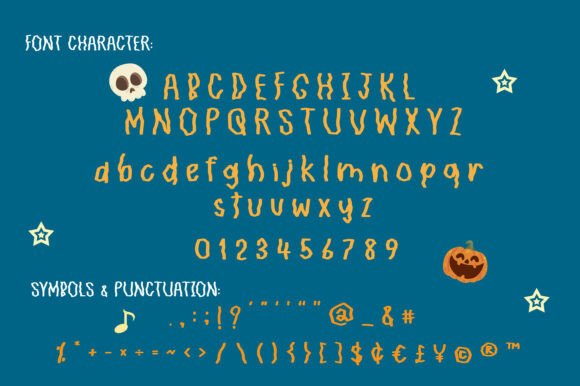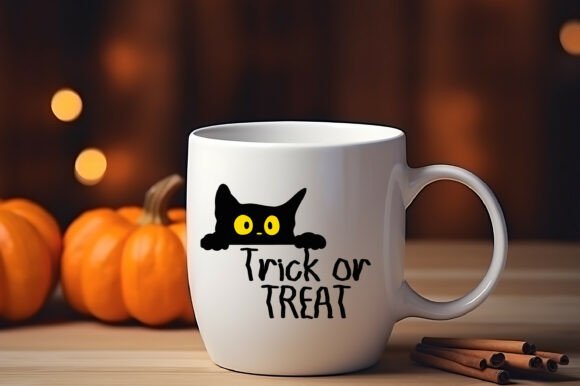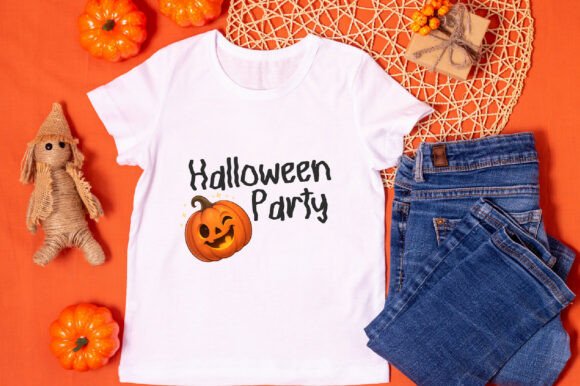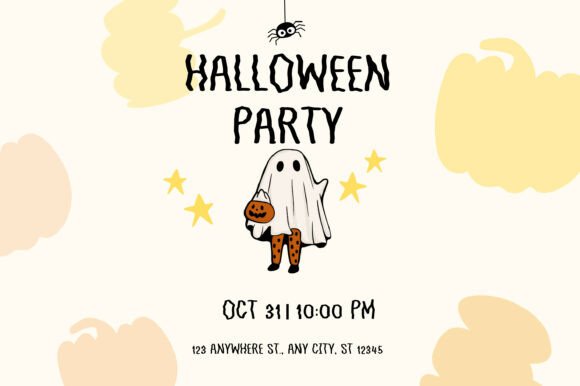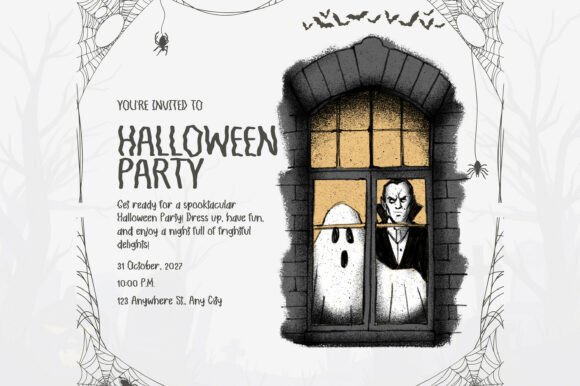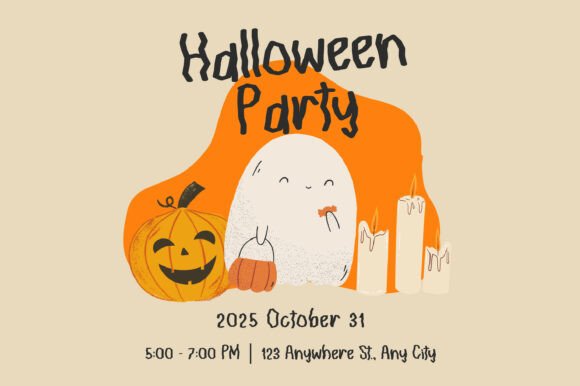
Introduction to Marker Clash Font
Have you ever stared at a blank page, trying to come up with the perfect design for a creative project, only to be struck with a burst of inspiration and suddenly have all the ideas flow? That’s exactly what happened when I stumbled upon the Marker Clash Font – a quirky, hand-drawn display typeface that’s equal parts spooky and cute.
As a designer, I know how valuable it is to have high-quality design resources at our fingertips. And let me tell you, Marker Clash Font is a game-changer. With its unique wobbly strokes and playful charm, this font is perfect for adding a fun and festive touch to any project. Whether you’re creating digital downloads, stickers, or DIY printables, Marker Clash Font is sure to make your text stand out.
Key Features of Marker Clash Font
- High-quality design resource ideal for creative projects, offering a unique blend of marker-inspired styles and modern typography.
- Comes with a transparent background, allowing for easy integration into various design environments.
- Features a large character set, including uppercase and lowercase letters, numbers, and punctuation marks, making it suitable for a variety of applications.
- Designed with a high resolution of 300 DPI, ensuring crisp and clear text display, even at larger font sizes.
- Unique characteristics include a bold, expressive style and a range of customizable options, allowing designers to tailor the font to their specific needs.
Honest Review: Marker Clash Font
I recently came across the Marker Clash Font and I’m excited to share my thoughts on it. As a designer, I’m always on the lookout for high quality design resources that can elevate my creative projects. The Marker Clash Font is a great find and here’s why.
- ✨ Unique and bold style that’s perfect for making a statement
- ✨ High quality design that’s crisp and clear
- ✨ Transparent background option for easy use
- ⚠️ Limited character set, which may not be suitable for lengthy text
- ⚠️ Not ideal for small text sizes due to its bold style
Overall, I’m impressed with the Marker Clash Font. It’s a great addition to any designer’s toolkit and can add a lot of flair to creative projects. While it may have some limitations, it’s definitely worth considering for your next design project.
To get the most out of the Marker Clash Font, use it on a transparent background to create a clean and modern look. You can also experiment with different font sizes and colors to add emphasis to your text.
The Marker Clash Font is ideal for creative projects, such as:
- Typography projects
- Branding and marketing materials
Alternatives to Marker Clash Font
The Lobster Font is a fun and quirky font that’s perfect for use in creative projects that require a touch of humor and playfulness. It’s ideal for use in titles, headings, and body text, and can add a unique touch to your design. Lobster Font is more casual and relaxed compared to Marker Clash Font, which is bolder and more expressive.